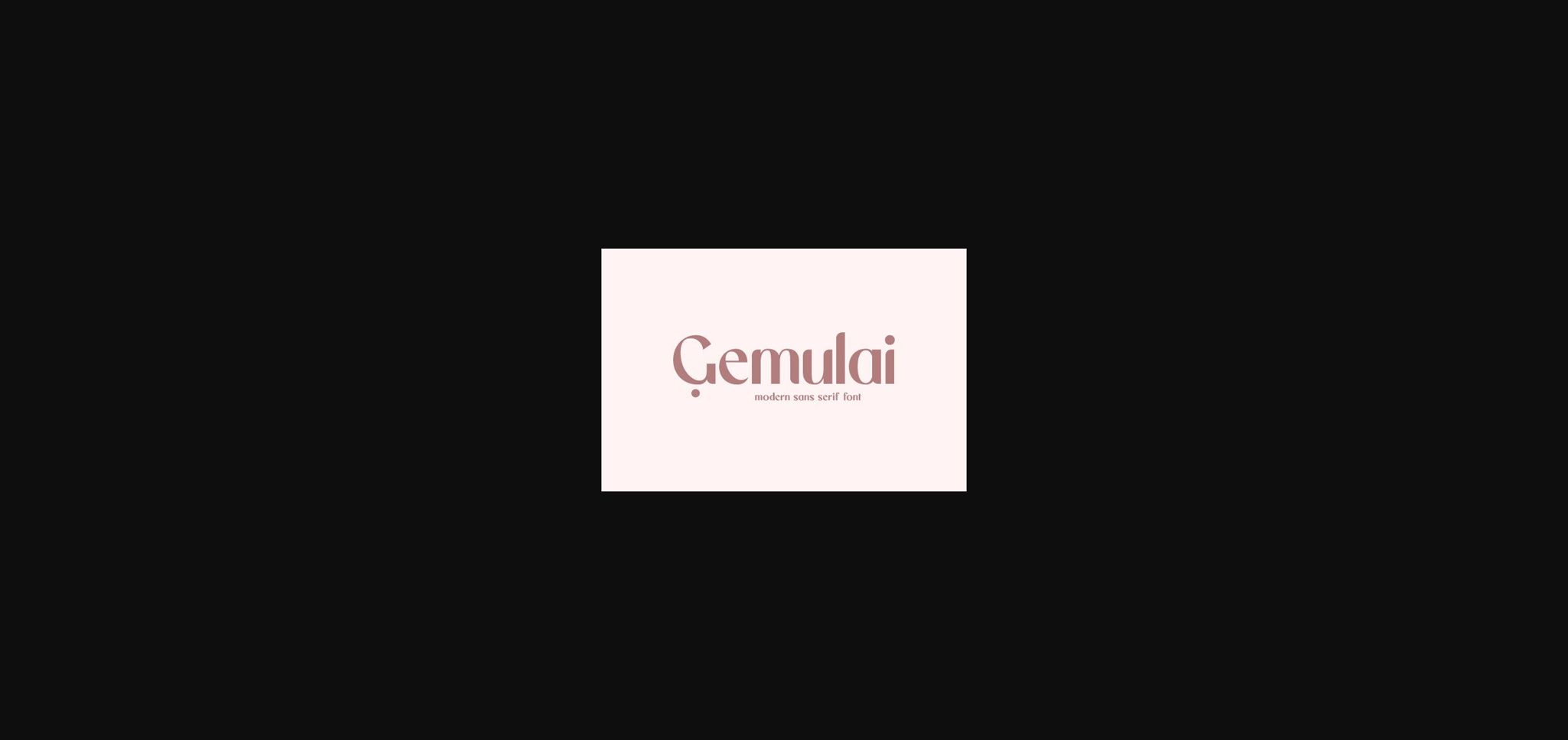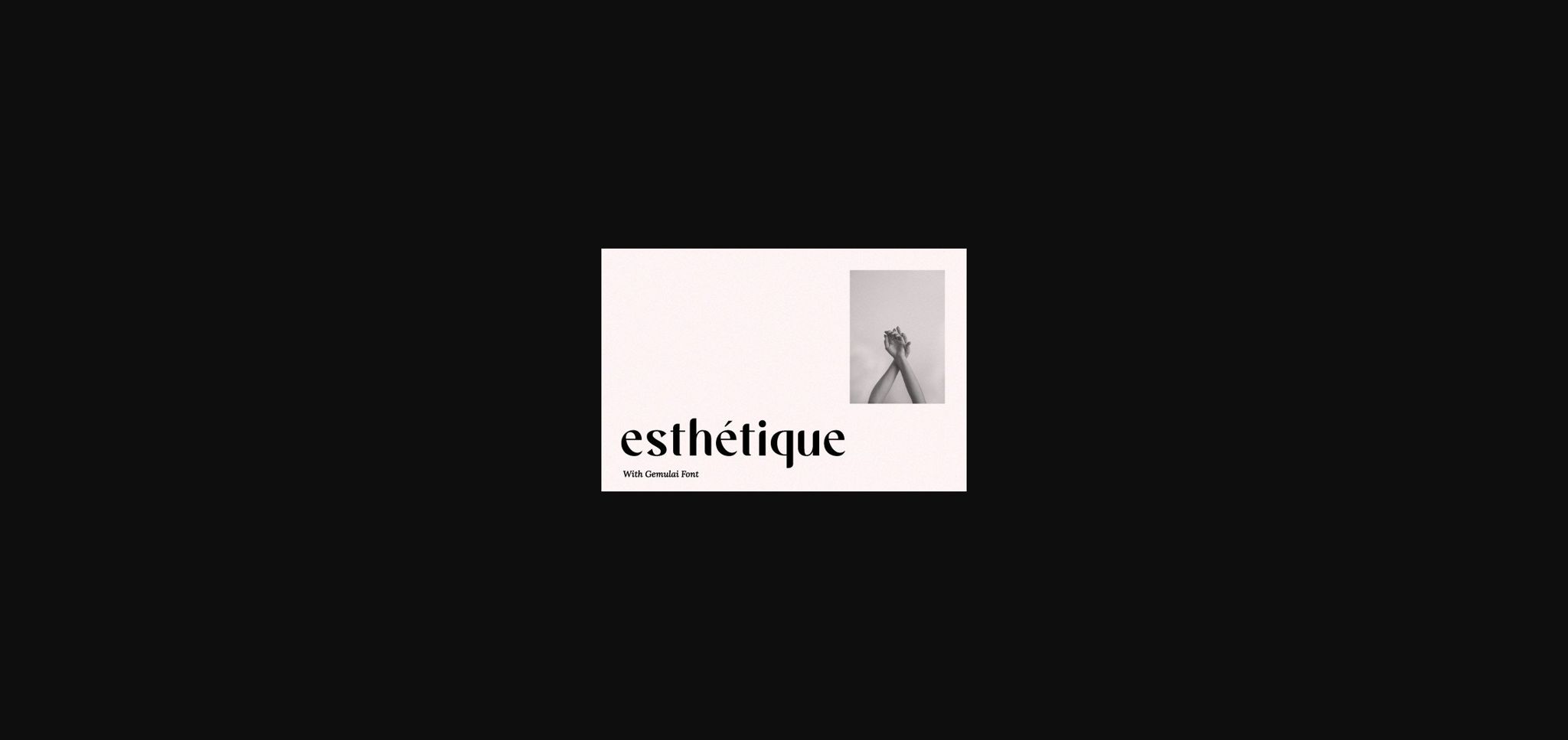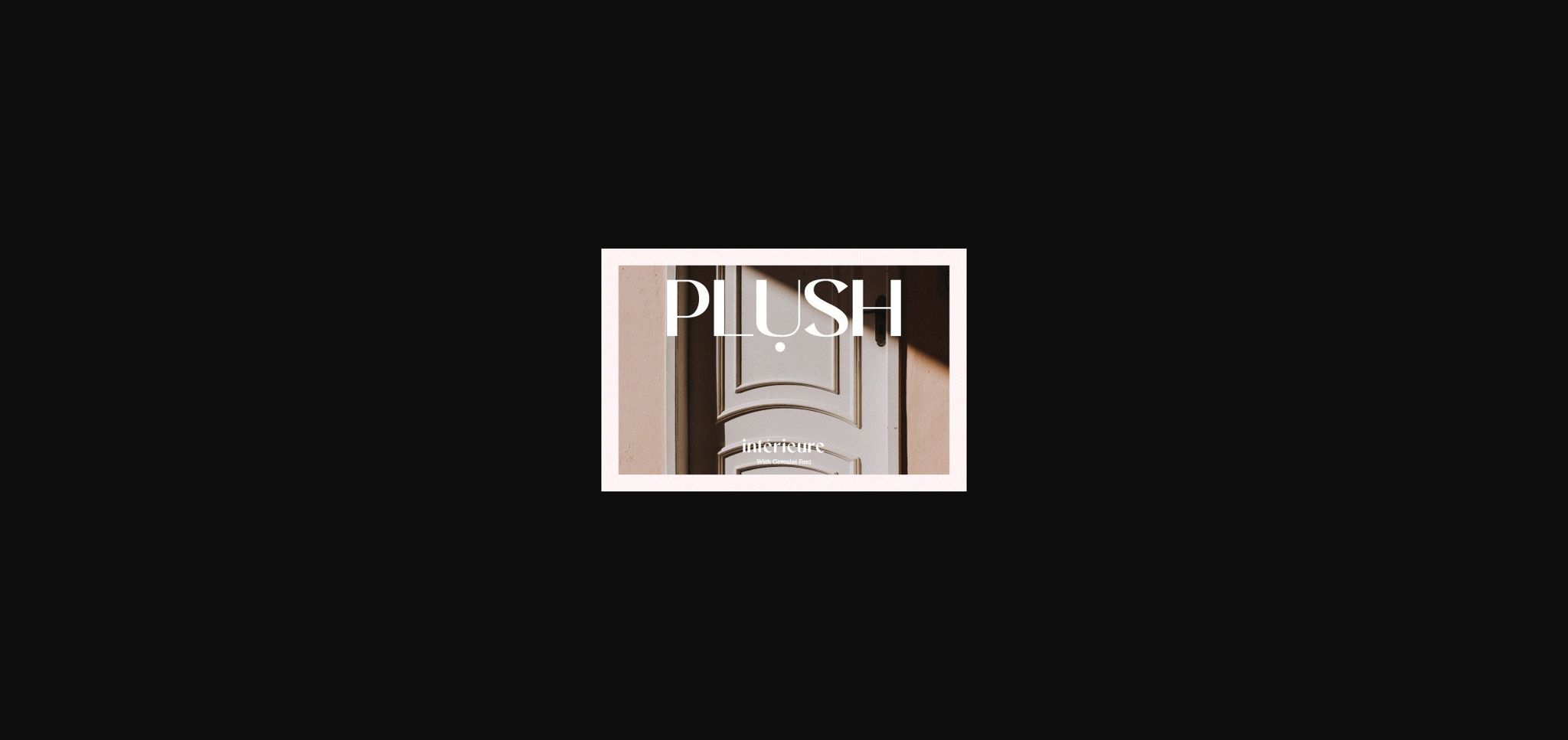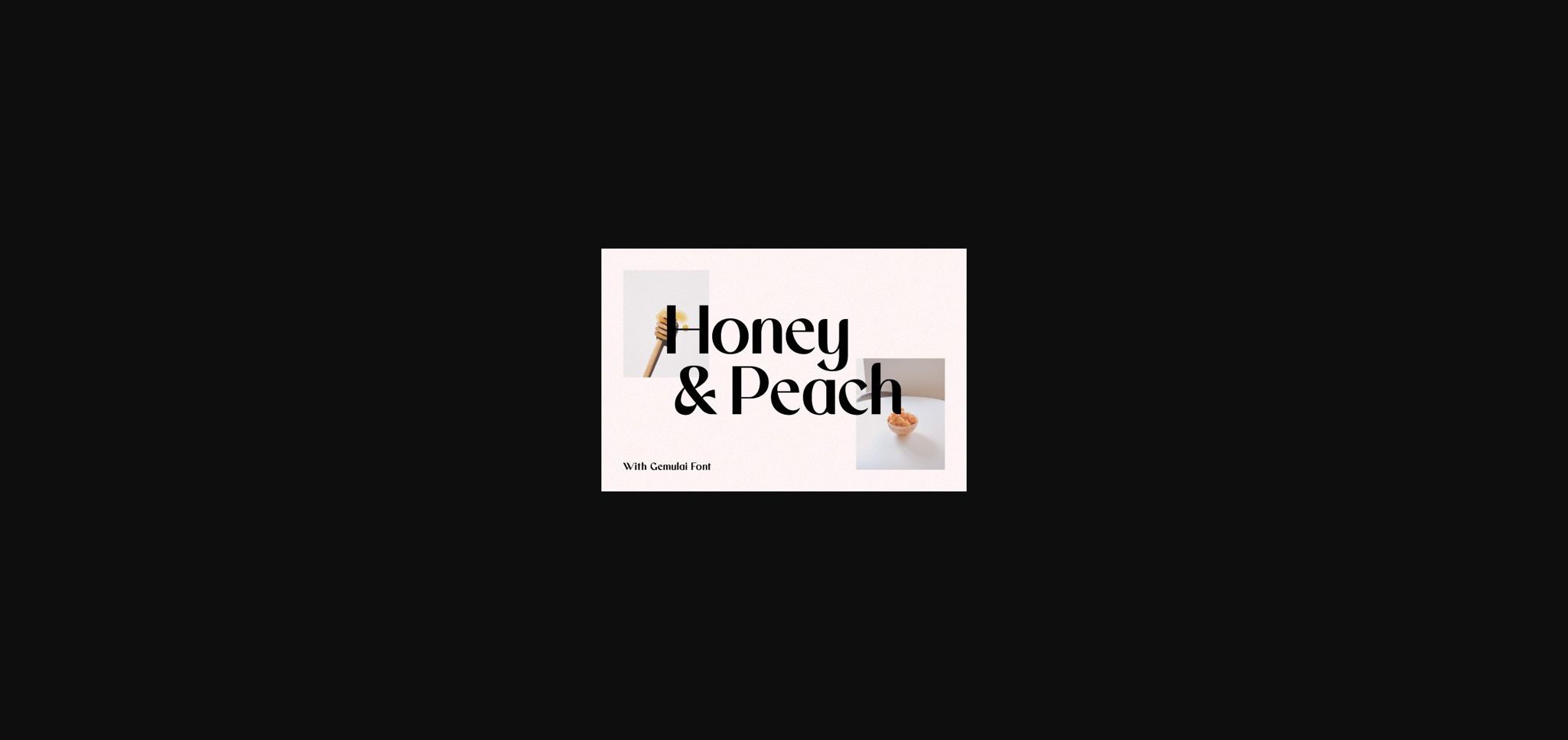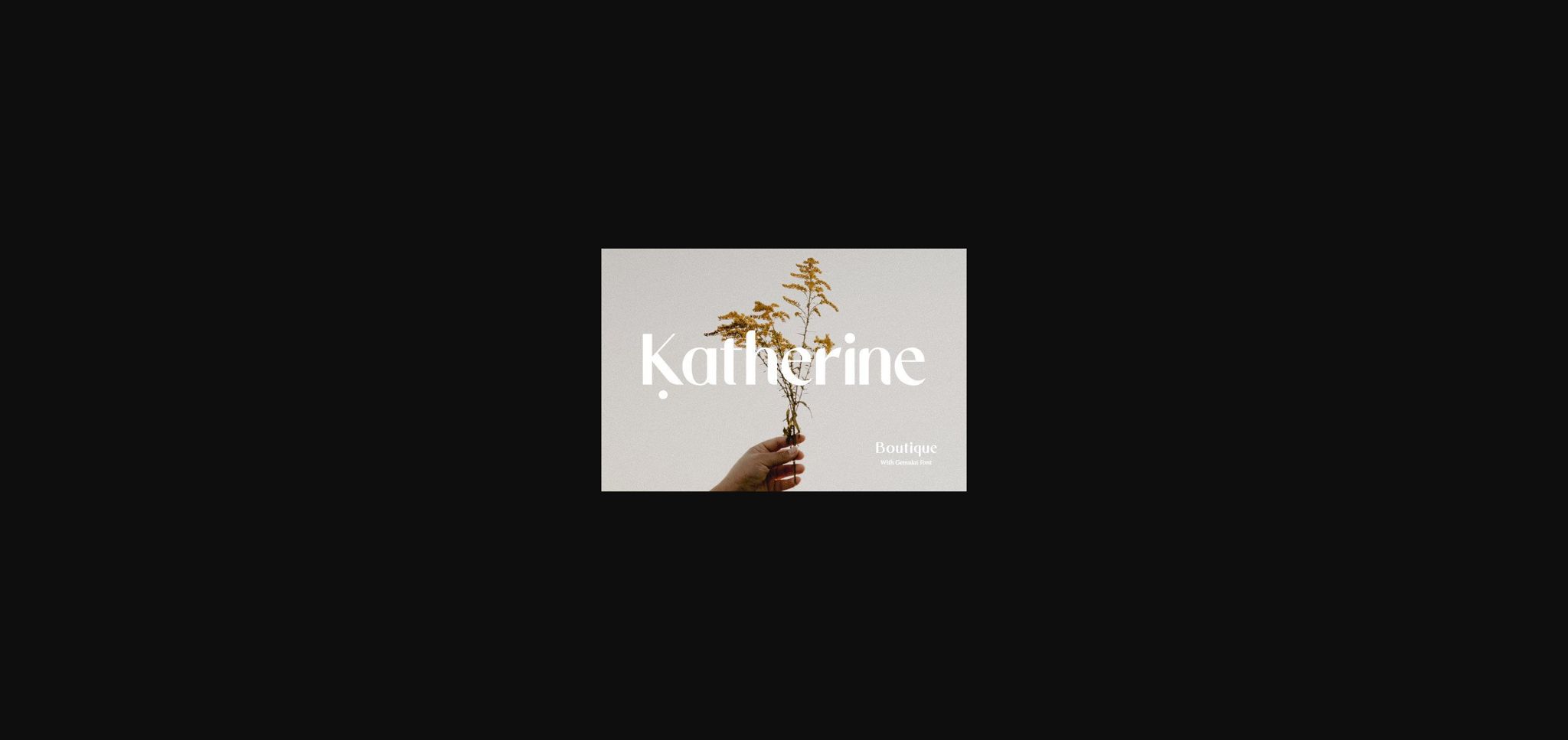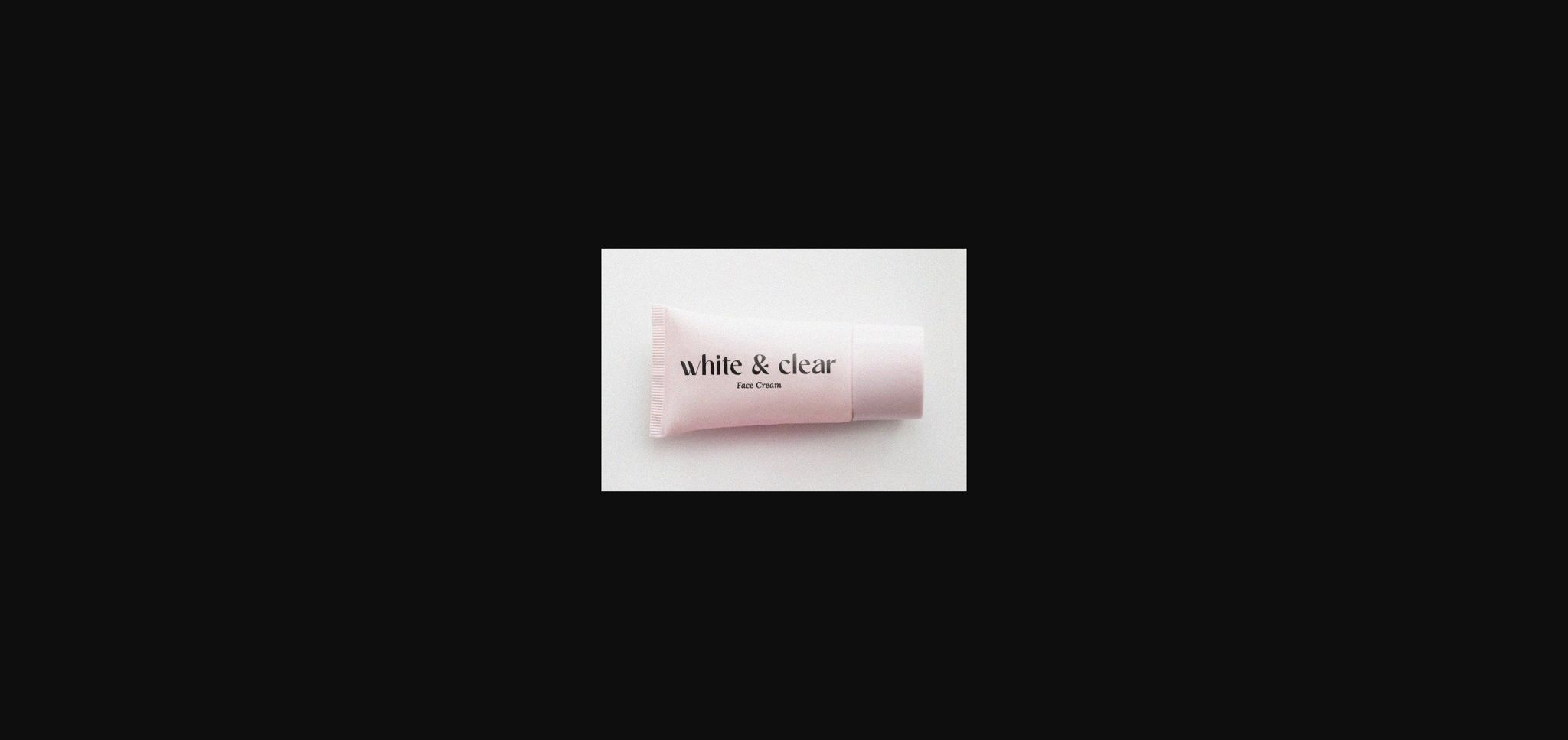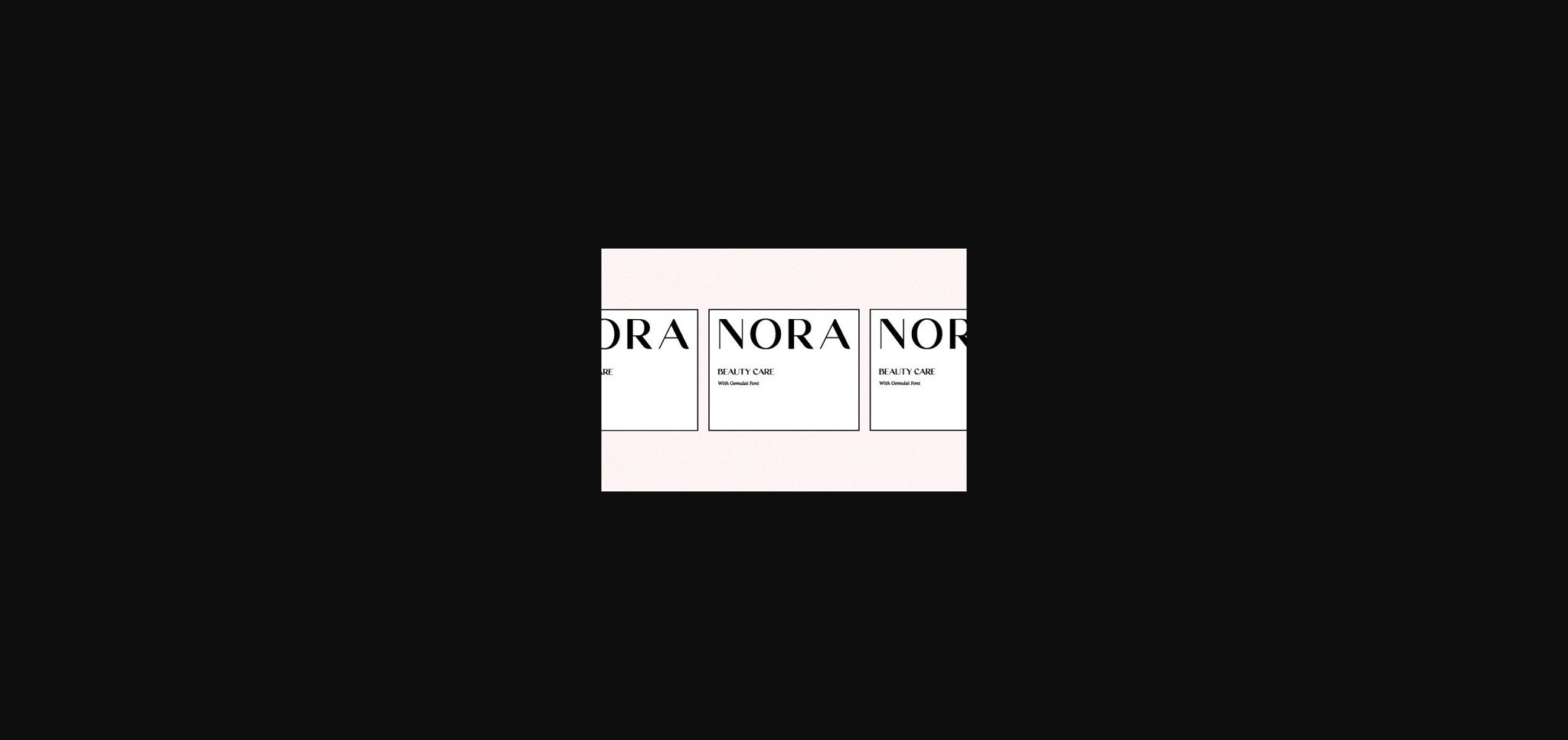
About Gemulai Font
Gemulai – Modern Sans Serif Font.
A modern and simple sans serif font to give your designs a more attractive appearance. Great for branding, logos, covers, and more. This font is PUA encoded, which means you can access all of the glyphs and swashes with ease!